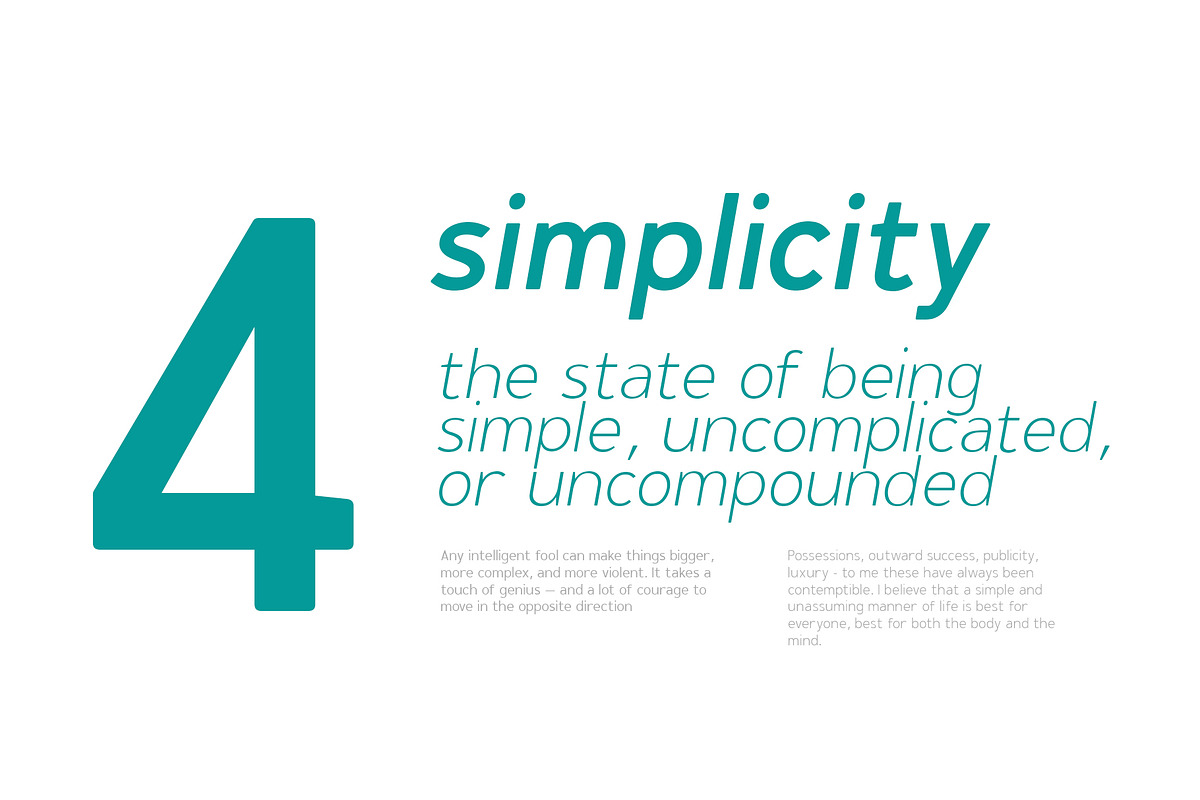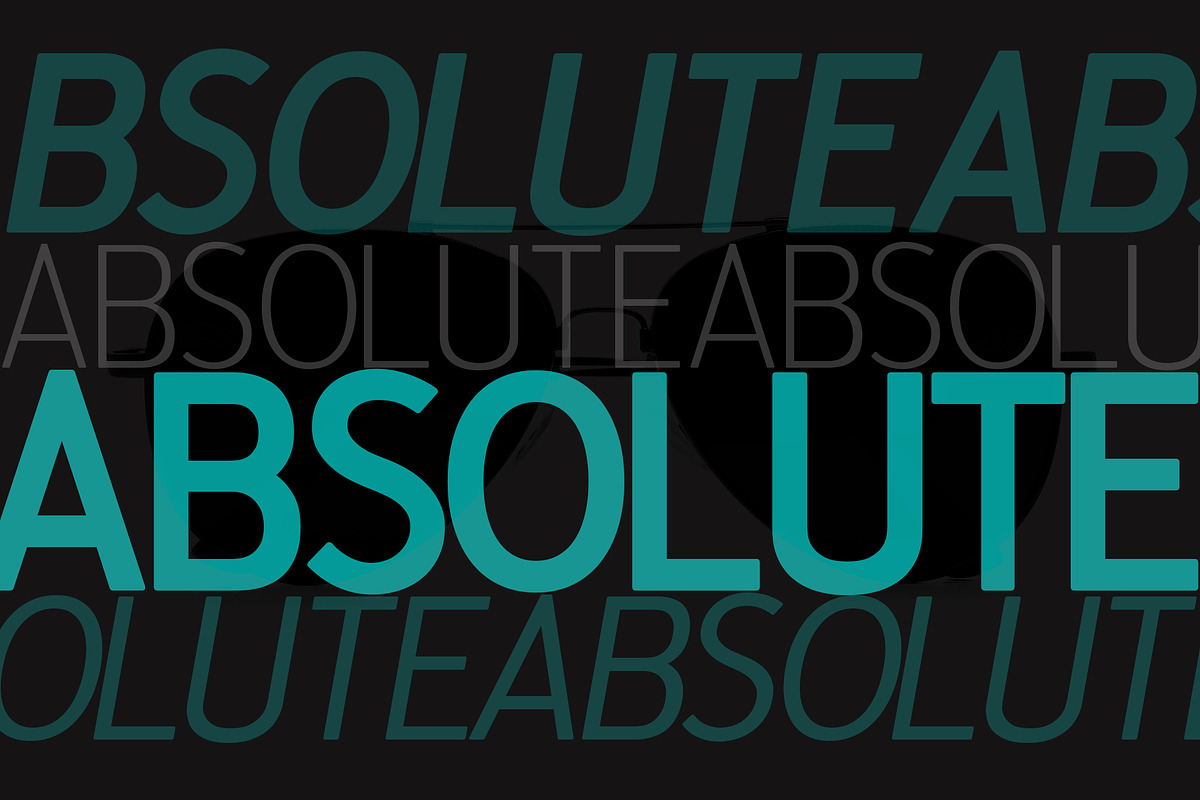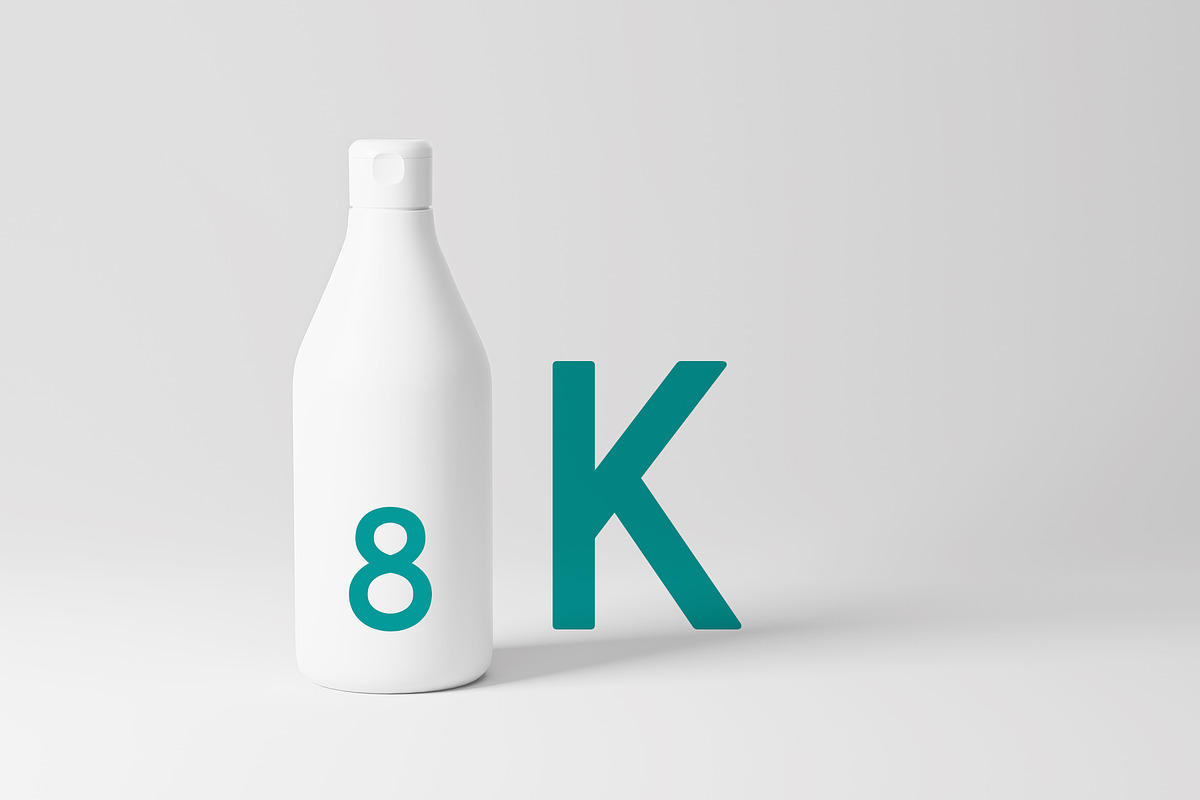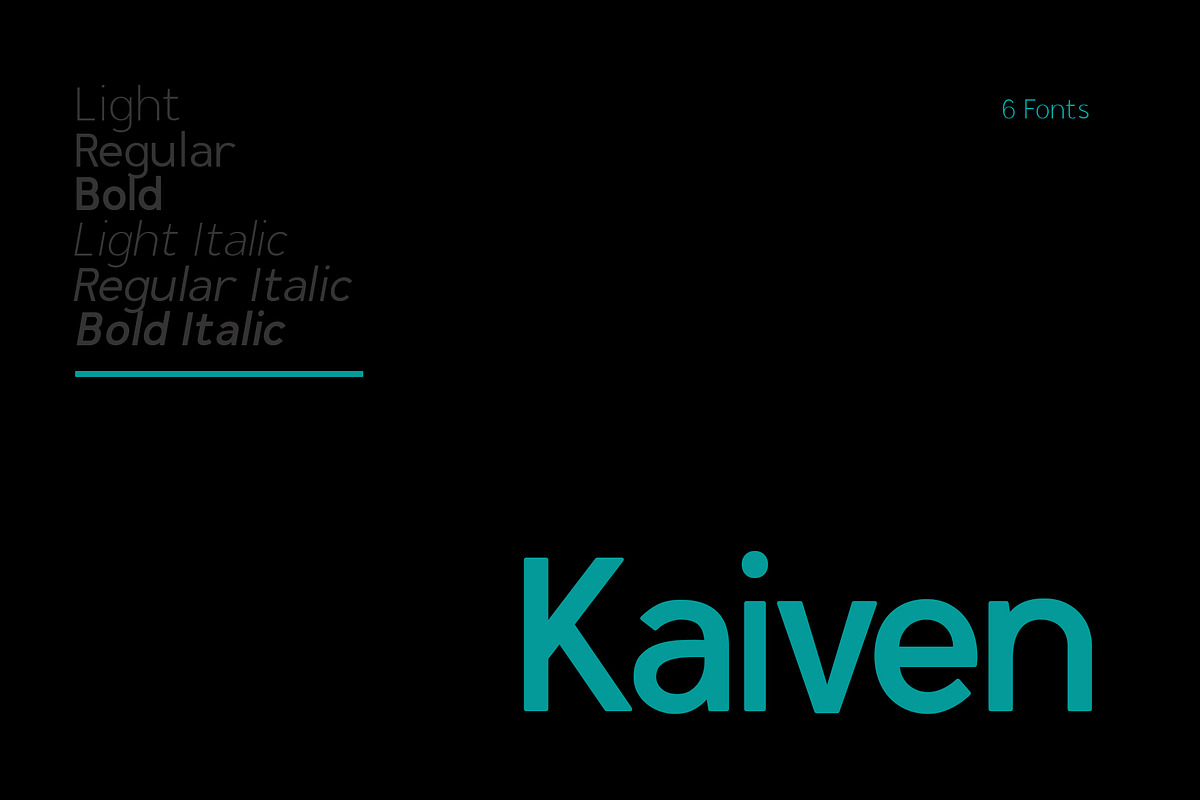
Kaiven
Kaiven is a very simple sans serif font. This font is so versatile that it can easily be used for any purpose. This font comes with three types of thickness, namely light, regular and bold.